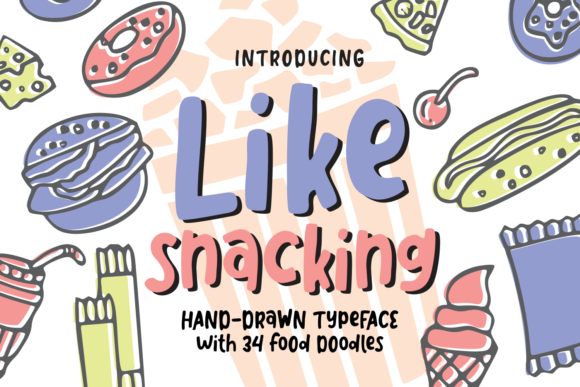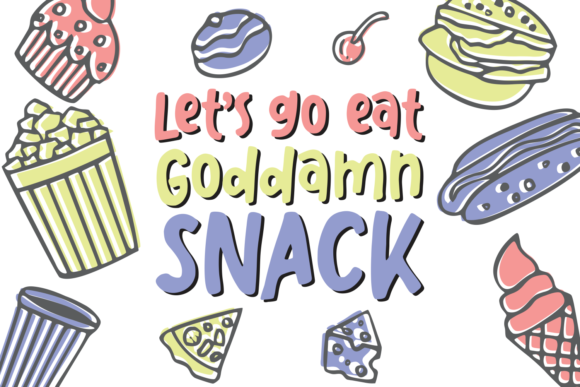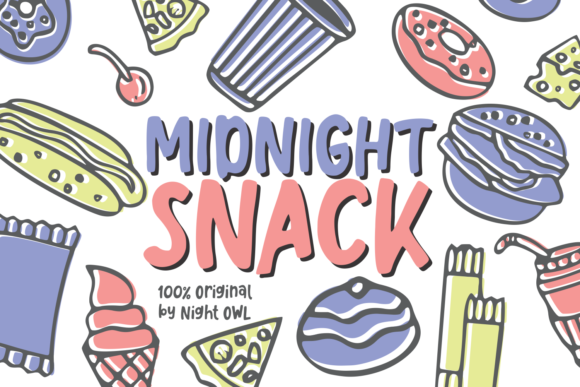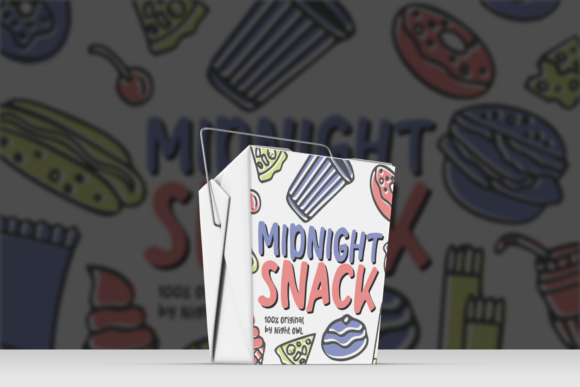
Like Snacking Font
About Like Snacking Font
Like Snacking is a delicious hand made font that comes including 34 food themed doodles.
It’s playful and colorful, and would work great for crafty designs.